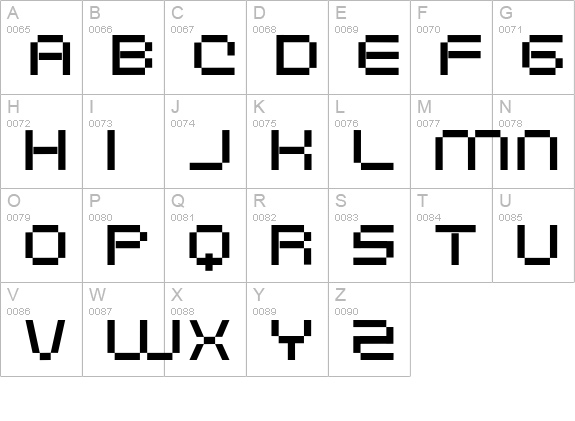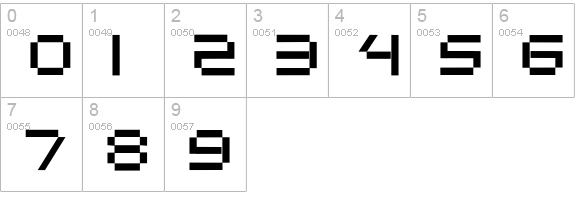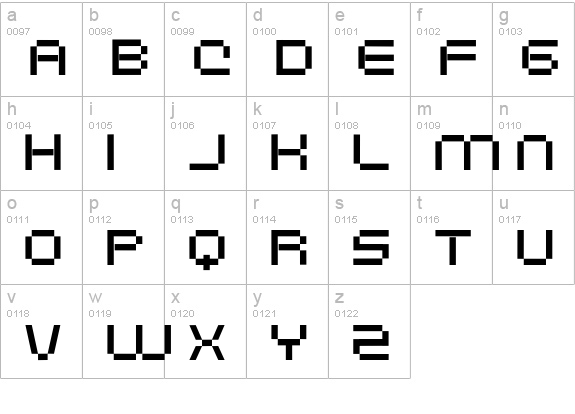
Digitalema Font Details
Digitalema font is a modern and stylish typeface that combines digital aesthetics with a sleek and futuristic design. With its clean lines and geometric shapes, Digitalema is perfect for creating a contemporary look in your projects. This versatile font is suitable for various design purposes, from branding to web design to print materials. What makes Digitalema font even more appealing is that it is completely free to use. You can easily download it at FontsMarket.com and start using it in your projects right away. Whether you are a graphic designer, web developer, or anyone looking for a fresh and innovative font, Digitalema is a great choice that will enhance your designs and make them stand out. Download Digitalema font today and add a touch of modernity and sophistication to your work!